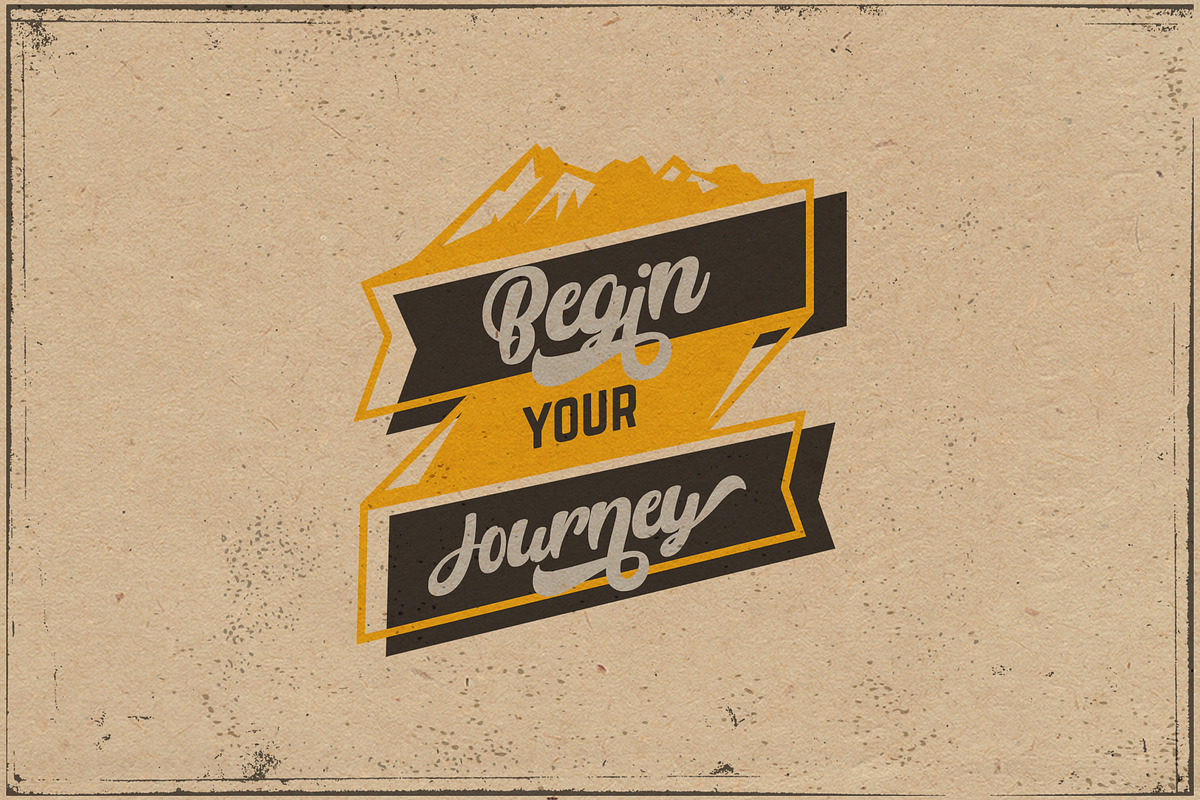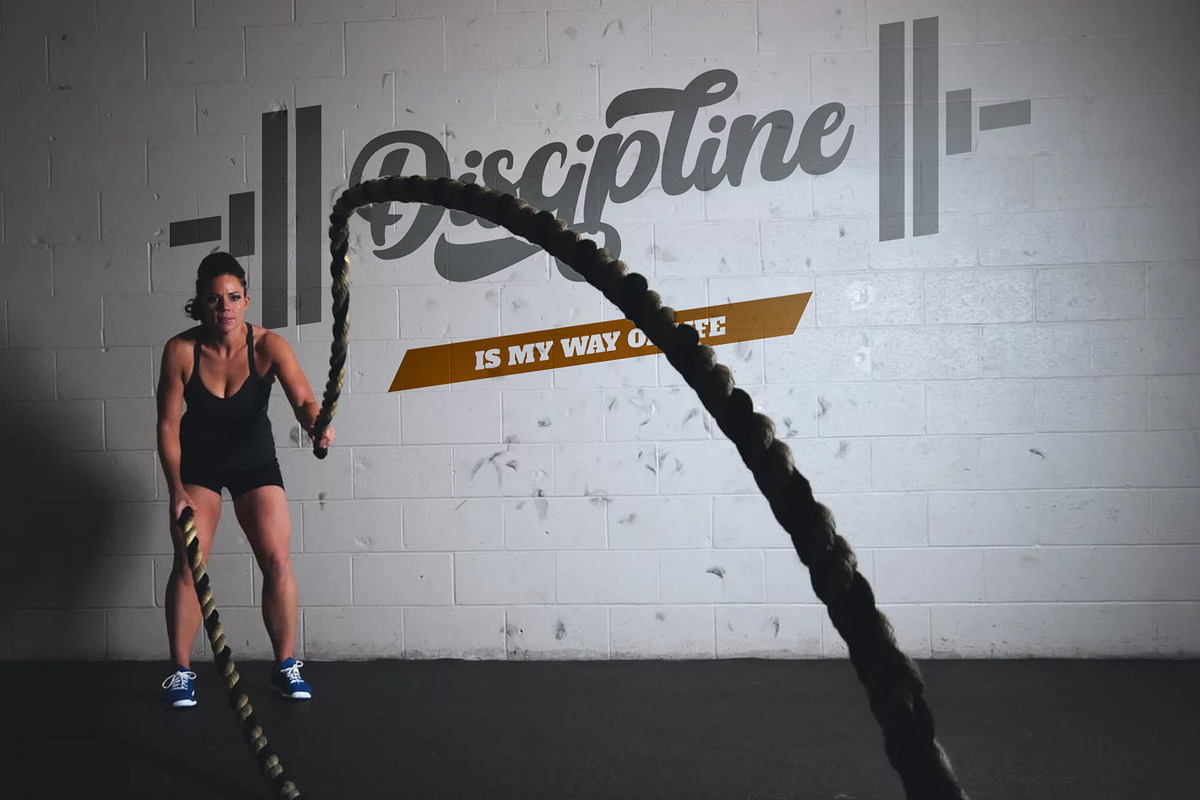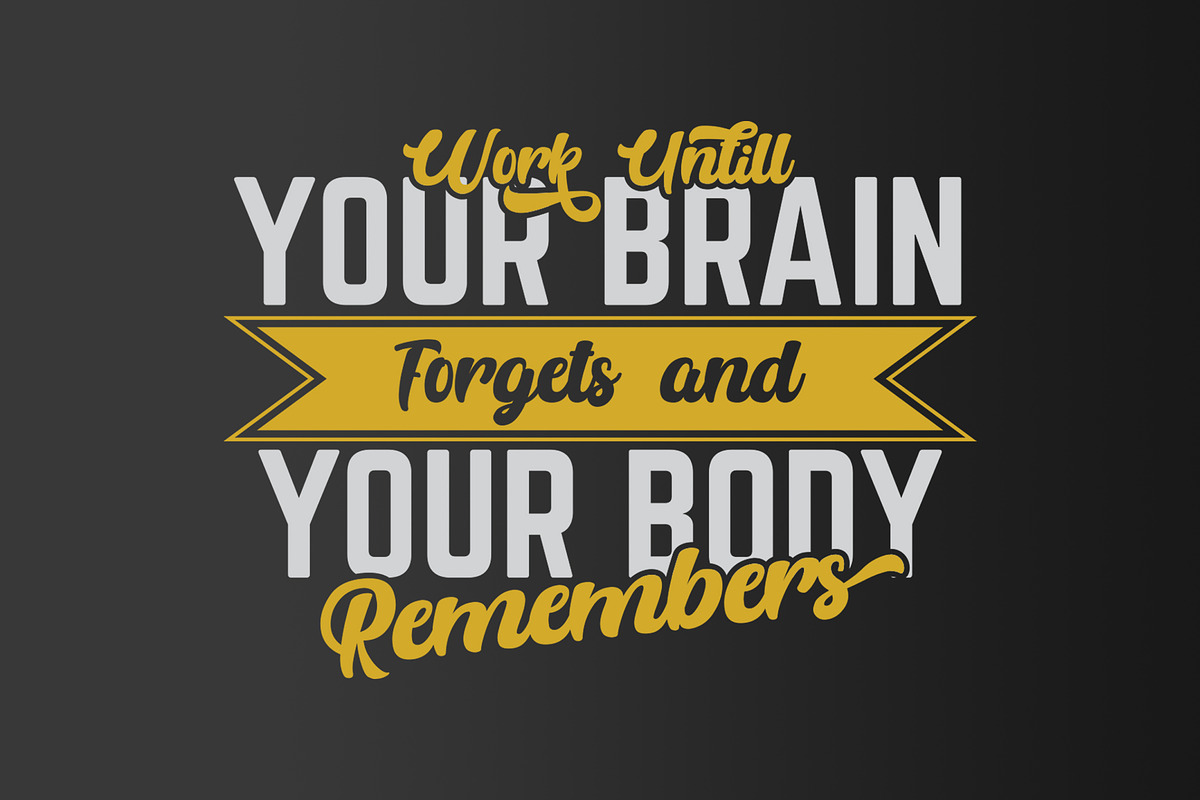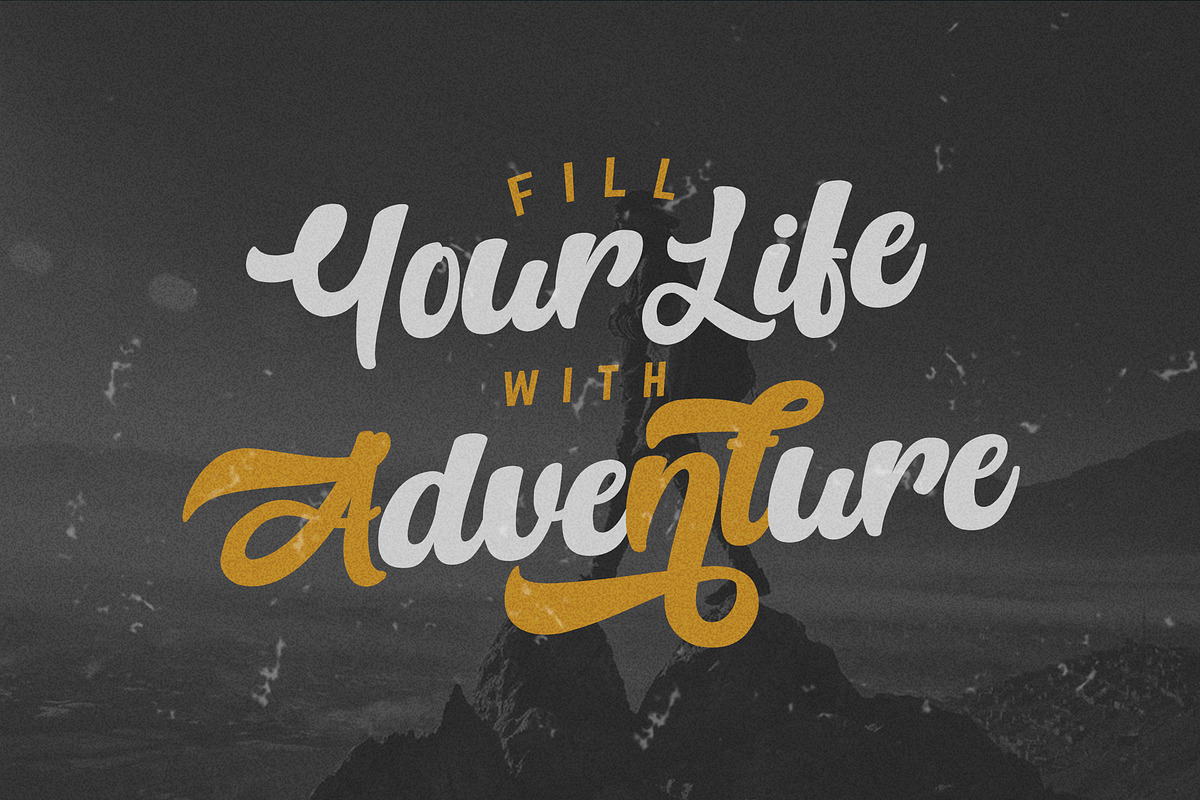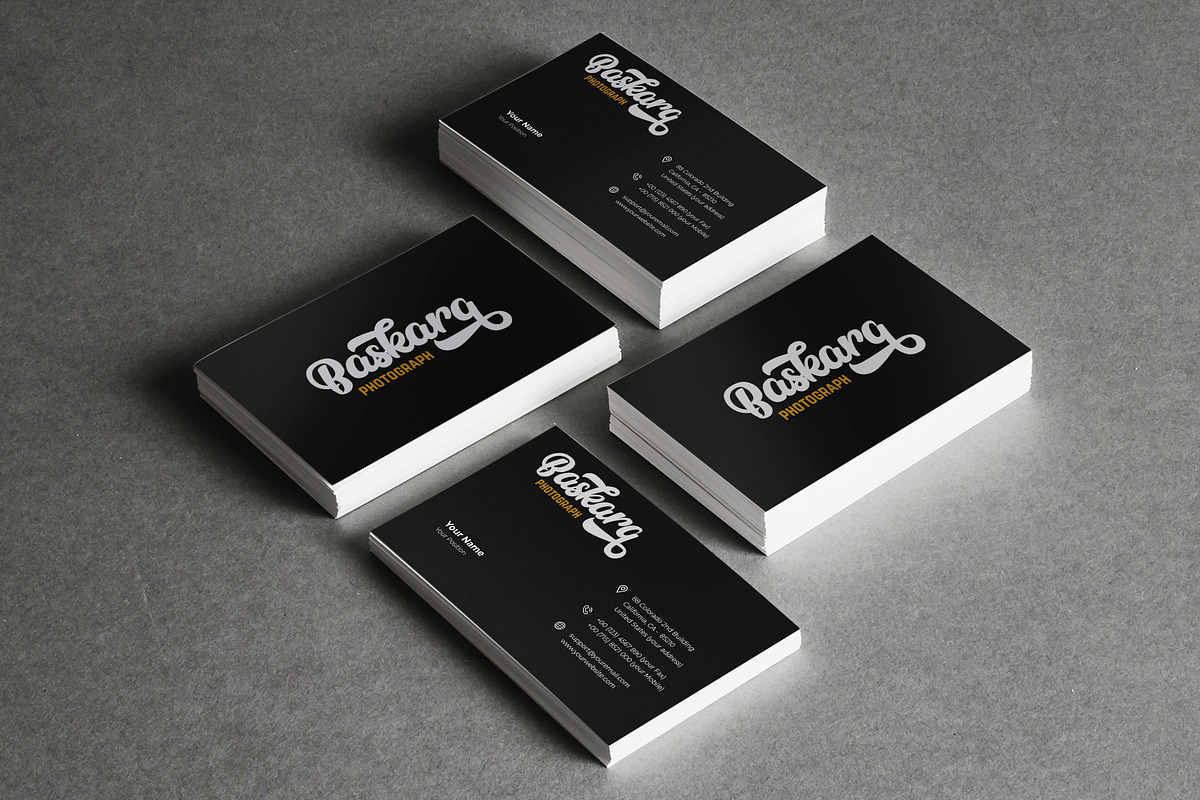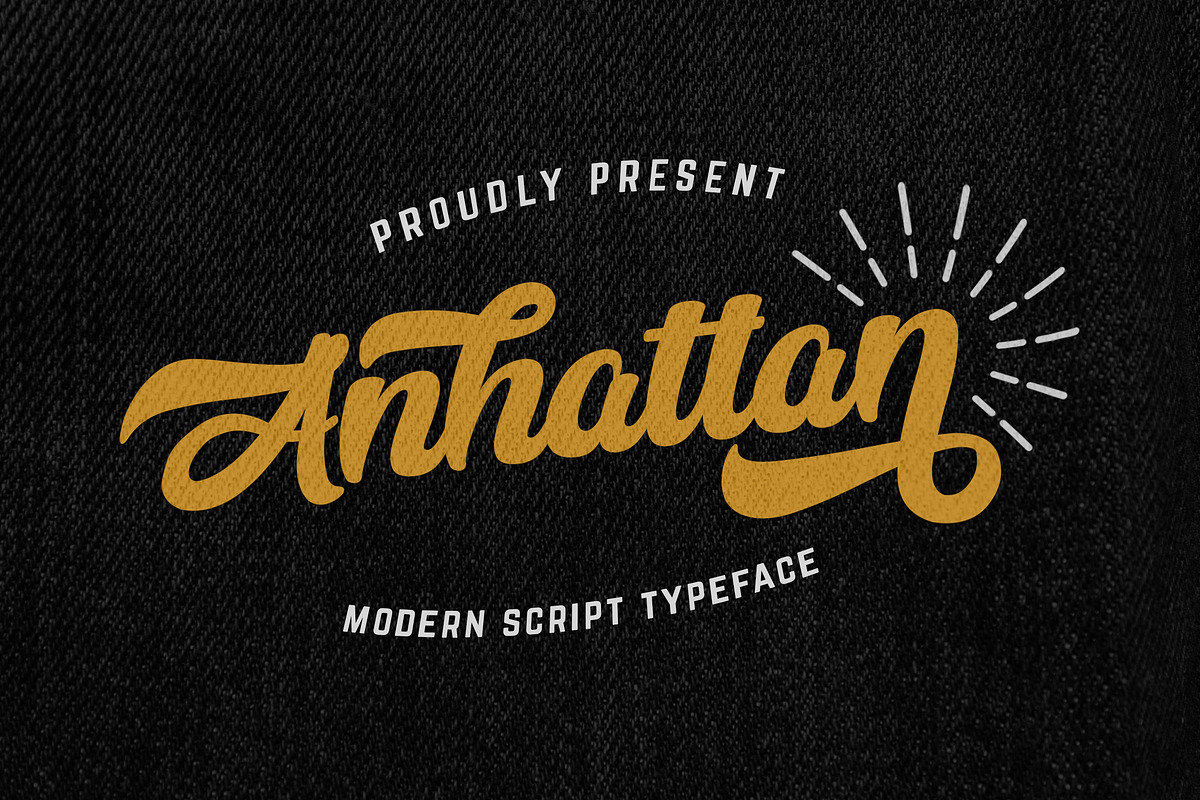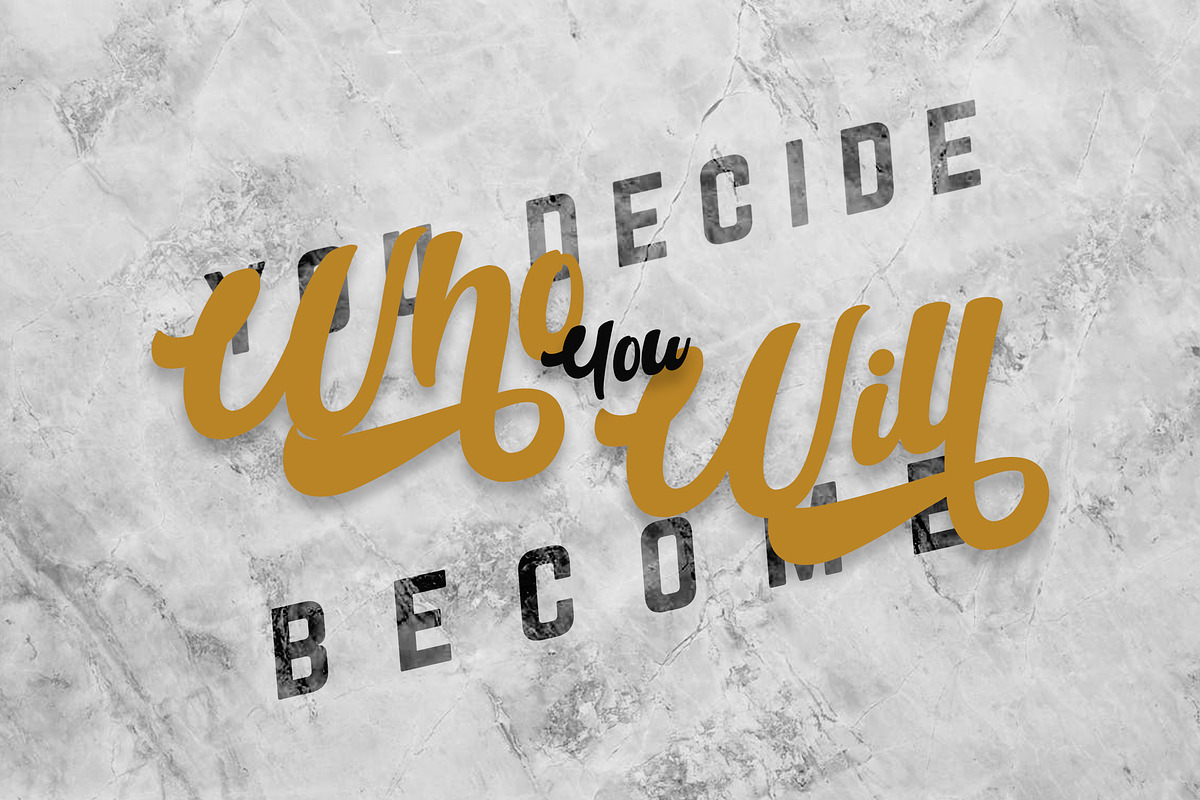
Anhattan - Retro Bold Script Font
Introducing Anhattan - Retro Bold Script Font
Anhattan is a Retro bold script with unique design taste and a classic retro style of the 80s, trendy, vintage, and sporty. Anhattan is perfect for vintage lovers, besides this font is also perfect if used for brands such as: barbershop, motorcycle club, clothing, coffee shop, shoe brands, vapor shop, hipster and many more.
- This Font Template contains Classy, Elegant, Creative, Cool and has a Unique Concept.
Why Anhattan - Retro Bold Script Font is worth a look
Anhattan - Retro Bold Script Font by StringLabs fits naturally into Branding, posters, packaging, typography.